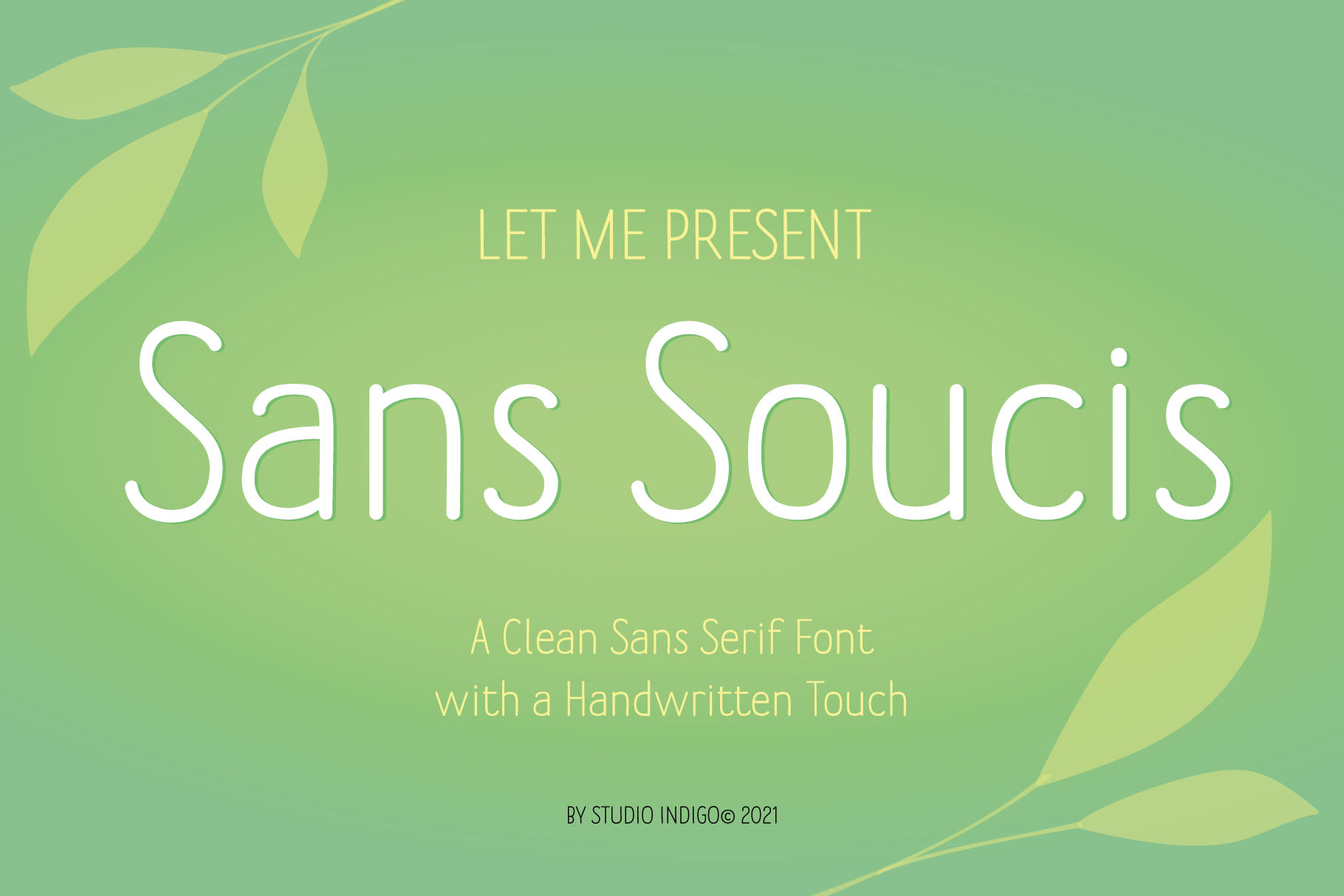
Sans Soucis a clean sans serif font
Sans Soucis is a clean sans serif typeface with a strong handwritten feel to it. The letters are narrow and has slightly rounded corners. It's a friendly well spaced and easy-to-use font with good readability that works well for both headlines and body text.
Sans Soucis contains 500 glyphs and has multilingual support for all European languages + Vietnamese. Please Note! You can test the font in the Font Preview before purchase.